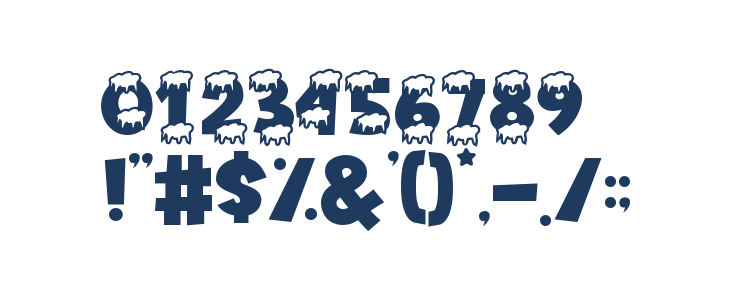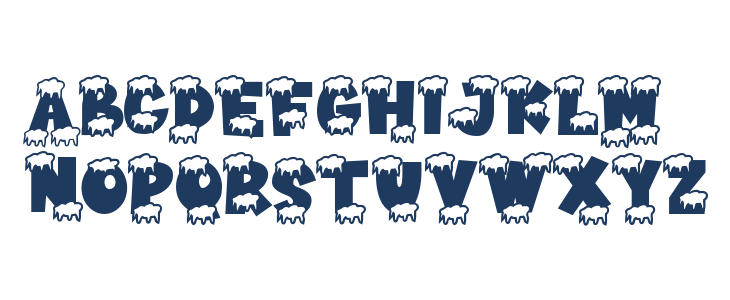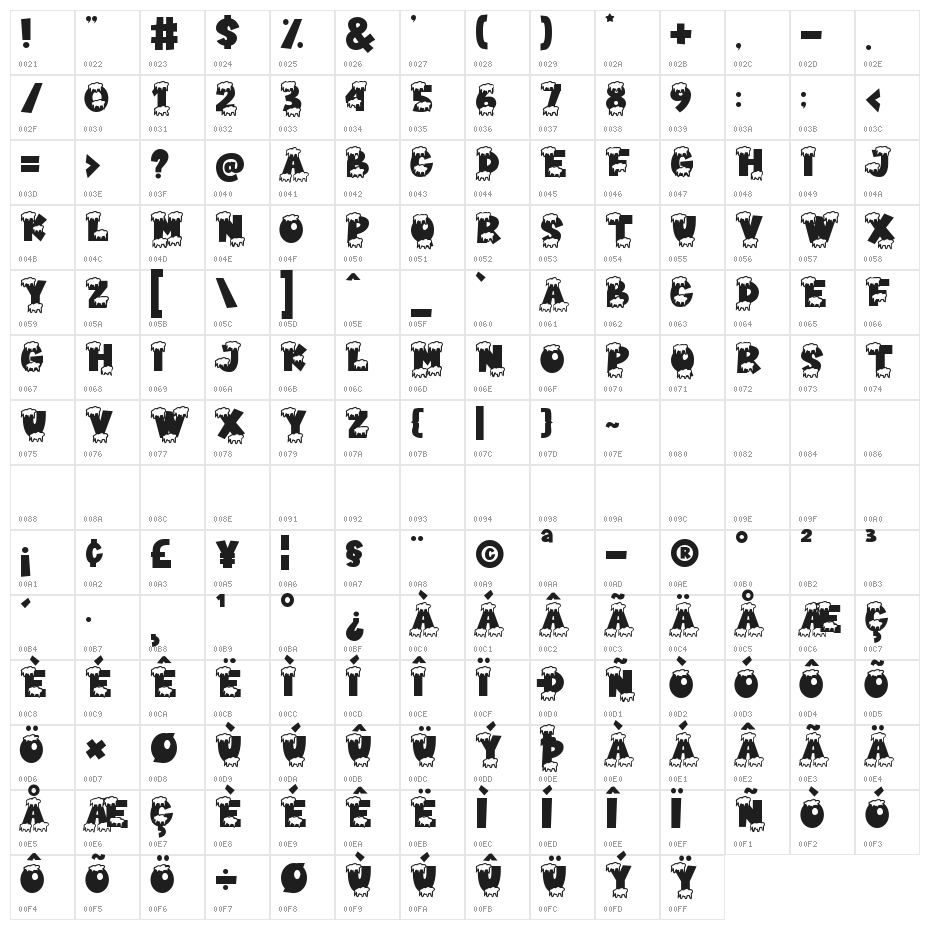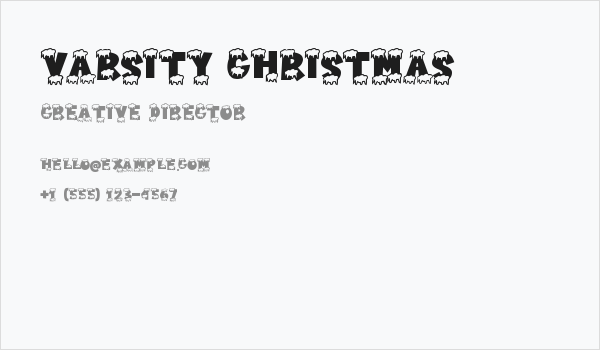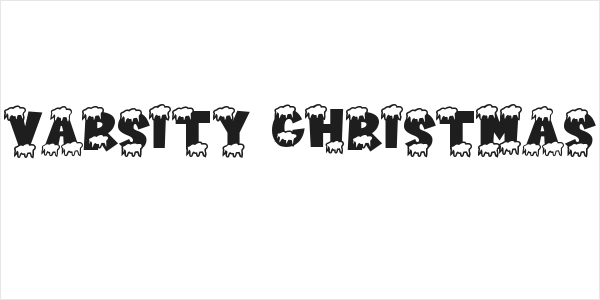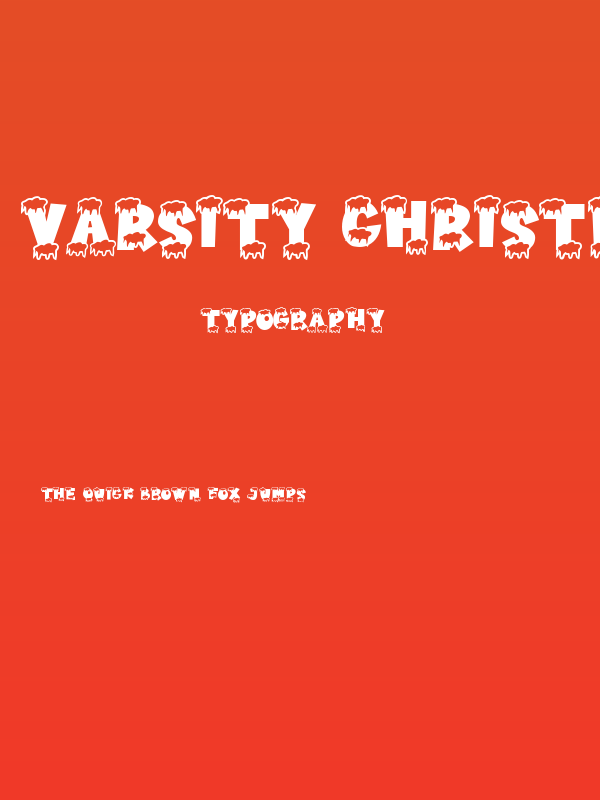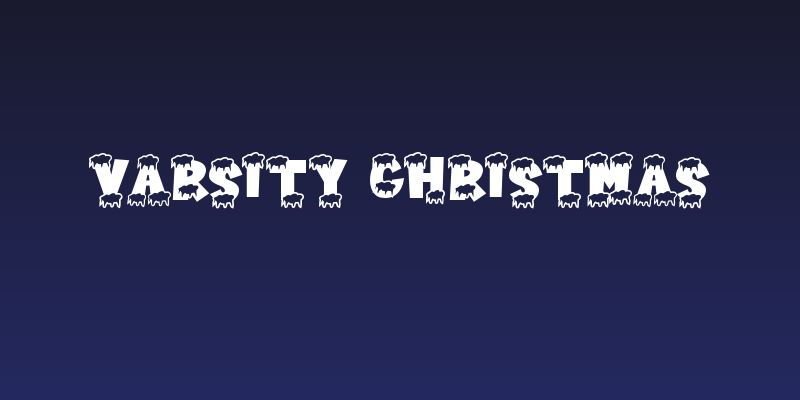
Varsity Christmas Font
Varsity Christmas Description
A bold, blocky display font with playful snow or frost effects on the tops of each character, evoking a festive, wintery atmosphere. The characters are uppercase, thick, and geometric, with consistent snow detailing across all glyphs.
Overall StyleDecorative, Festive, Playful
Use CaseHeadlines, Posters, Logos, Event Titles
Proposed ProjectsHoliday cards, Christmas event posters, winter festival branding, seasonal advertisements, party invitations.